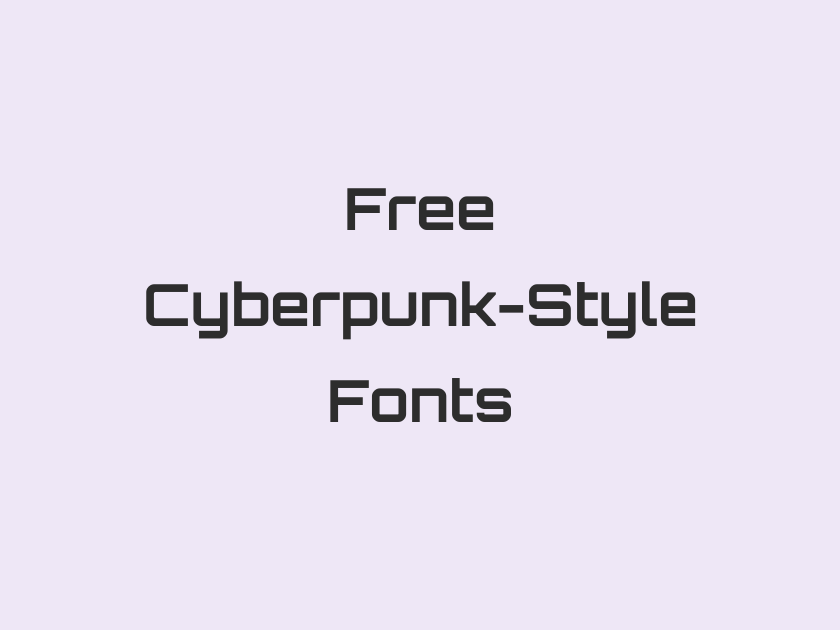
67 Best Free Cyberpunk-Style Fonts
The cyberpunk aesthetic runs on contrast: chrome and grime, corporate polish and street-level static, glowing signage against a rain-slicked megacity. Finding free cyberpunk fonts that capture that mood means looking past generic “futuristic” templates toward type with real personality, whether that is a squared-off techno display, a glitchy distortion, a pixel-perfect terminal font, or a stark monospace built for code and command lines.
Orbitron is the default shorthand for “sci-fi” in a huge number of logos and posters, and for good reason. Its geometric, almost architectural letterforms feel machined rather than drawn, which makes it a natural fit for HUD interfaces, corporate megacorp branding, and any headline that needs to look like it belongs on a chrome billboard. Keep it for display sizes only; the tight geometry gets muddy the smaller it goes.
Michroma
Wide, evenly weighted, and slightly retro in its NASA-adjacent feel, Michroma reads like signage from an alternate-timeline space program that got repurposed for a cyberpunk skyline.
Audiowide
Audiowide has a rounded, bubble-edged futurism that suits gaming logos and esports branding more than gritty street-level scenes. It pairs well with a harsher monospace body font to balance its friendliness with something colder.
Aldrich
Compact and unfussy, Aldrich does the quiet work of looking technical without shouting about it. It is a dependable choice for UI labels, dashboard headers, or any spot where you need a sci-fi flavor that will not compete with imagery.
Electrolize
There is a stretched, slightly clinical precision to Electrolize that recalls old computer terminal displays. It holds up well in all caps and works nicely for interface labels layered over glitch art or scan-line textures.
Quantico
Quantico is a more restrained, condensed-leaning sans with a military and aerospace undertone. It reads cleanly at small sizes, which makes it a smart pick for body copy in a design that otherwise leans heavily on louder display type.
Rajdhani was originally built for Indian government interfaces, and that engineering-diagram DNA still shows in its narrow, technical proportions. It has enough weight range to serve as both a punchy subhead and a legible paragraph font, making it one of the more versatile fonts on this list for a full cyberpunk website rather than just a poster headline.
Exo
Exo brings a rounded, slightly friendlier futurism than most of its geometric siblings, with terminals and curves that feel closer to consumer tech than military hardware.
The sequel to Exo tightens up the spacing and adds a broader weight range, making it one of the most flexible sci-fi sans families available for free. It works equally well as a bold cyberpunk headline or as clean, readable body text underneath louder display type.
Saira
Saira’s huge family of widths and weights makes it useful far beyond a single poster; the condensed cuts especially suit dense HUD-style labeling and sidebar navigation on a tech-themed site.
Saira Condensed
A tighter, taller cousin of Saira, this condensed cut is built for tight spaces: stacked headlines, vertical signage, or dashboard readouts where every pixel of width counts.
Chakra Petch
There is a distinctive angularity to Chakra Petch, with slightly sliced terminals that give every letter a faceted, almost crystalline look. It carries a strong personality even in body-text weights, so it doubles well as both a display face and a readable paragraph font in interface-heavy layouts.
Tektur
Tektur (an evolution of the older Tecturek styling) has a bold, industrial squareness that reads like it belongs stenciled on a mech chassis or a shipping container in a dystopian port city.
Genos
Genos leans narrower and more understated than most fonts on this list, which makes it a solid workhorse for navigation menus and captions in a design where the display type is doing the heavy visual lifting.
Between the glossy geometric families, the terminal-ready monospace fonts, and the deliberately broken glitch faces, there is enough range here to build an entire cyberpunk visual system without touching a single paid license. Mix a couple of loud display fonts with one dependable body font, add some neon and grain in post, and the aesthetic comes together fast.